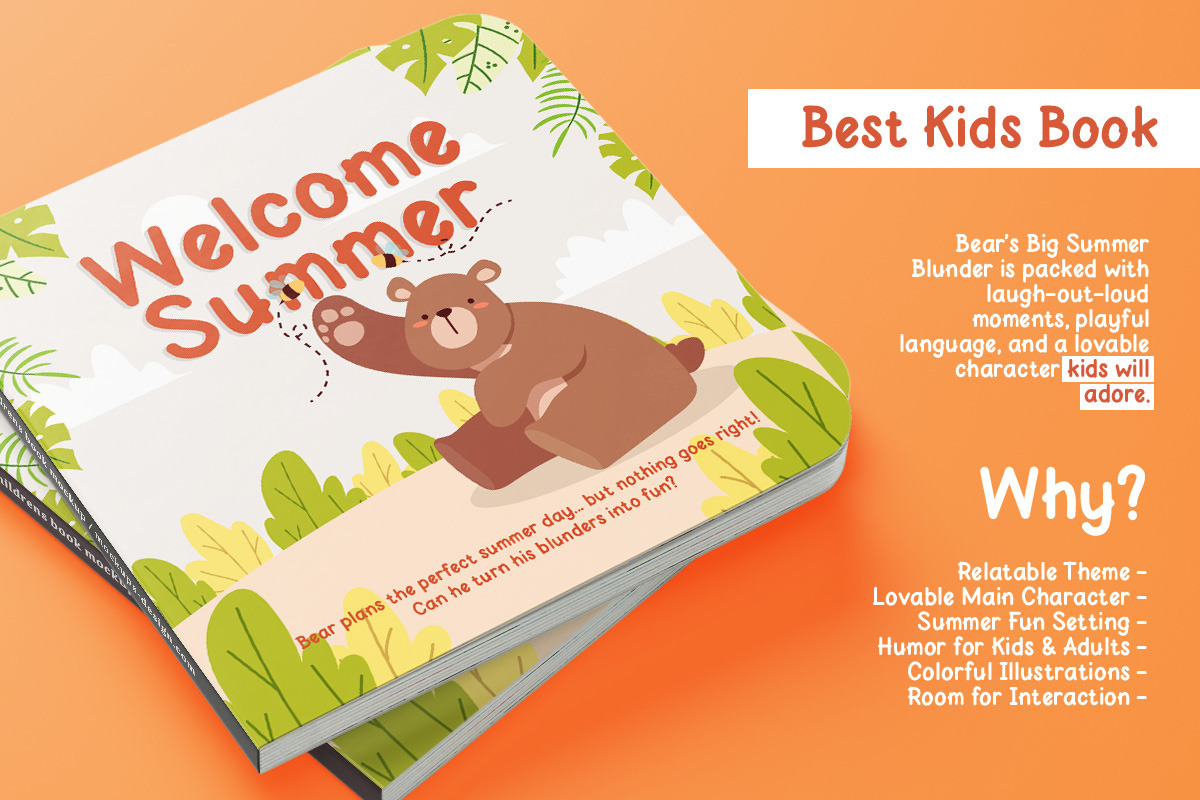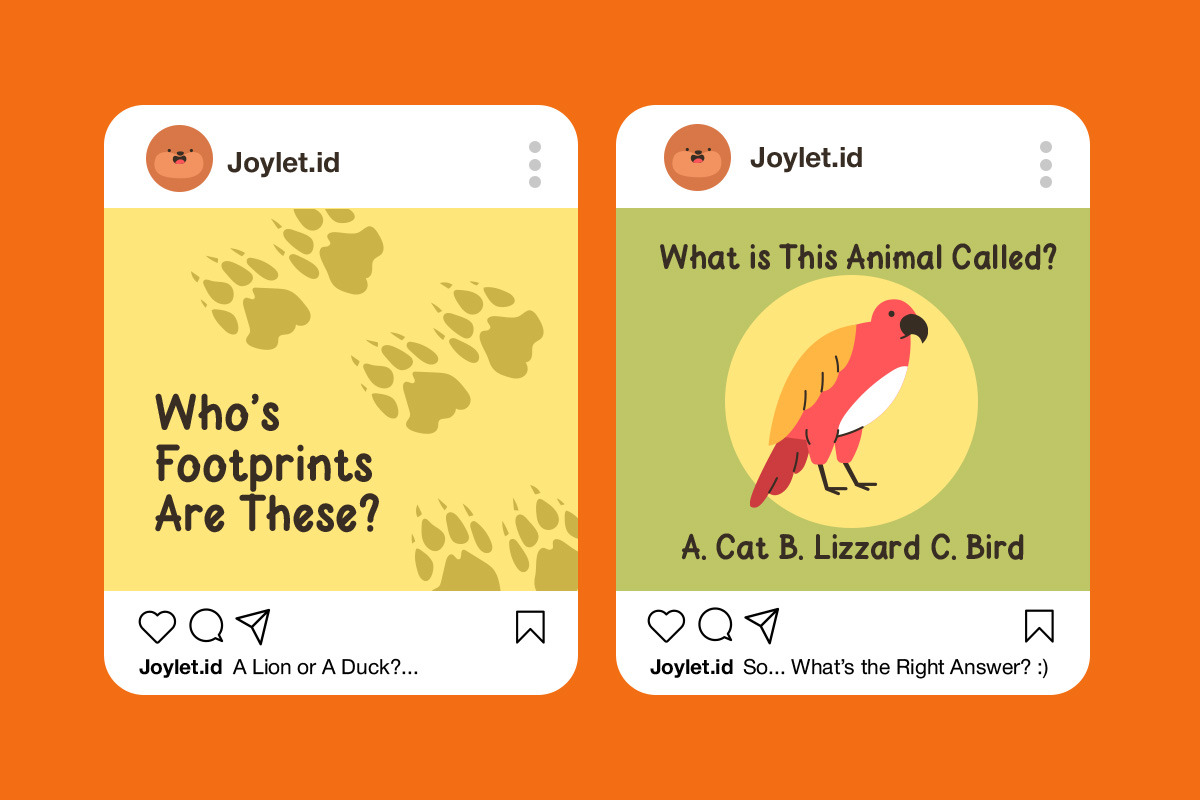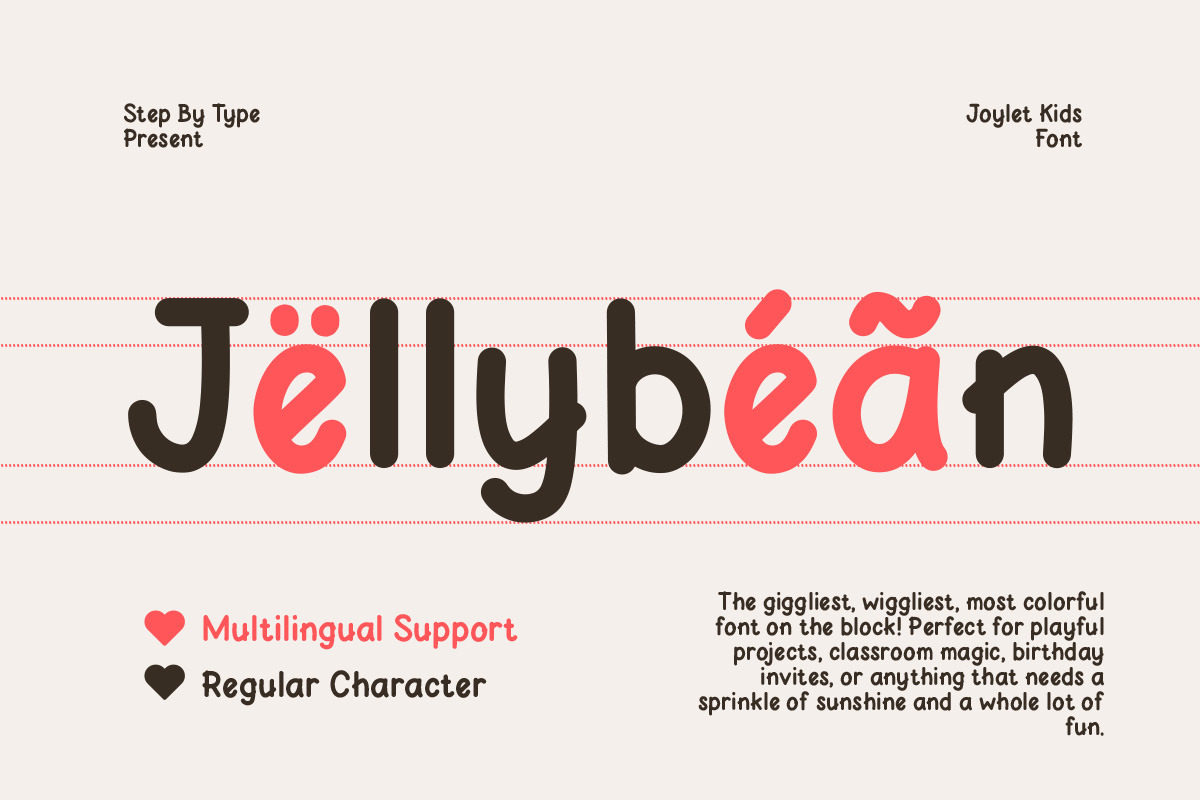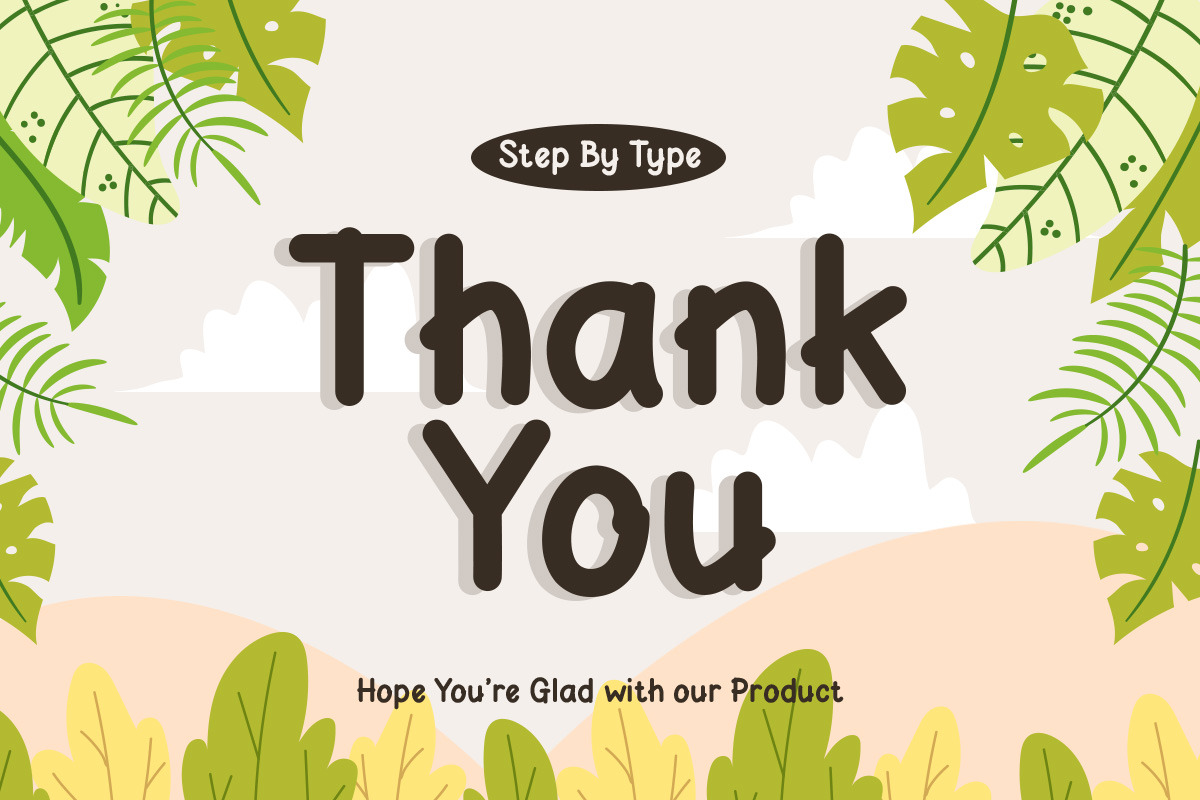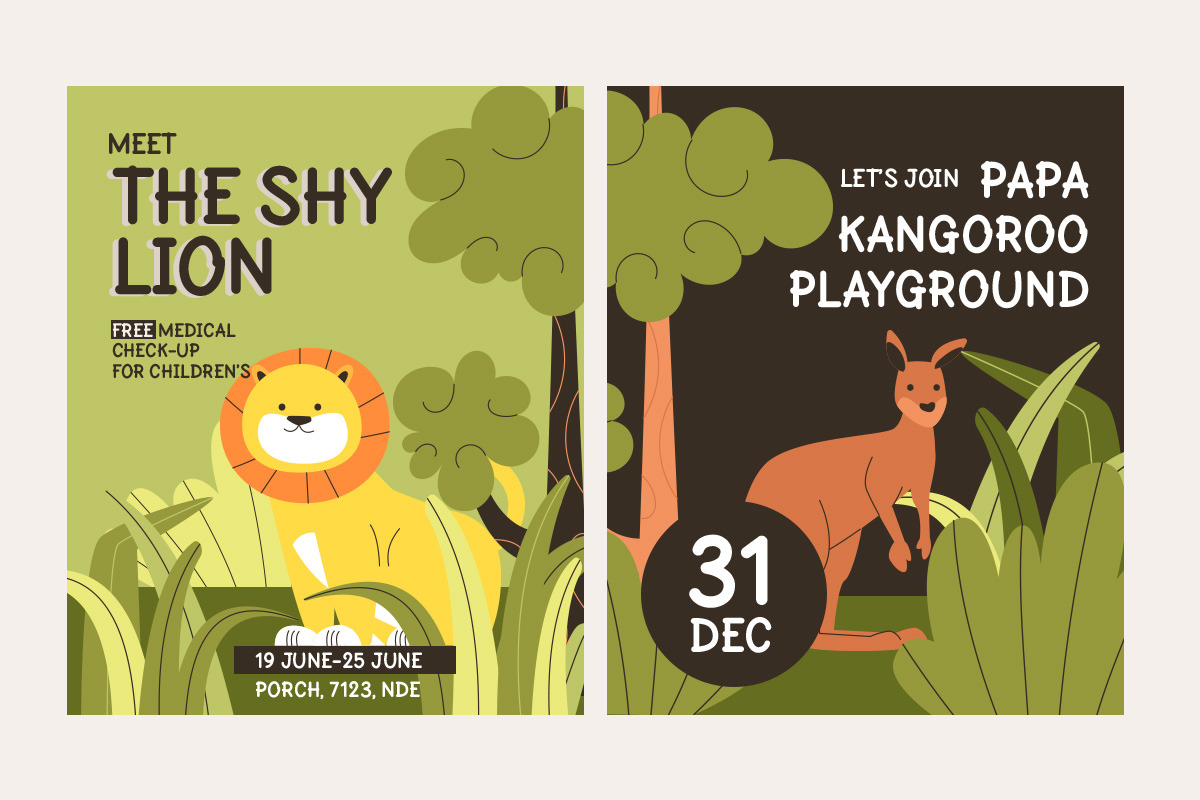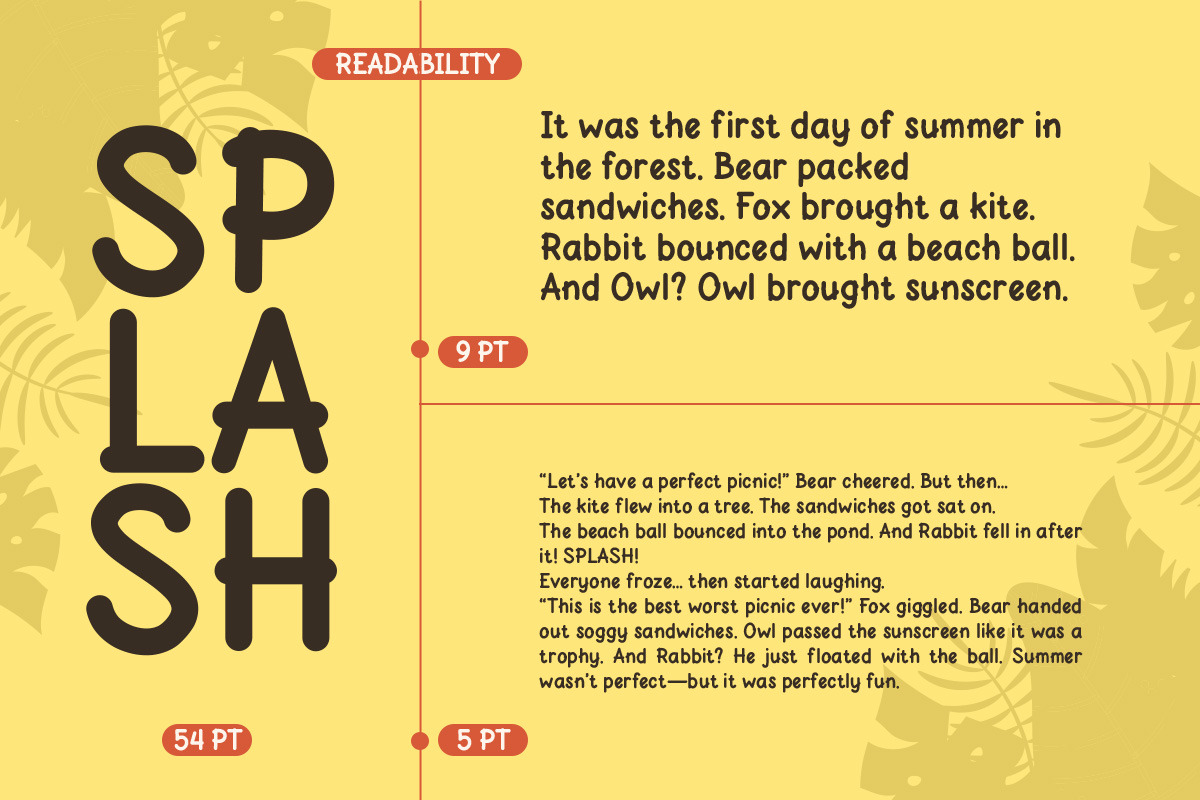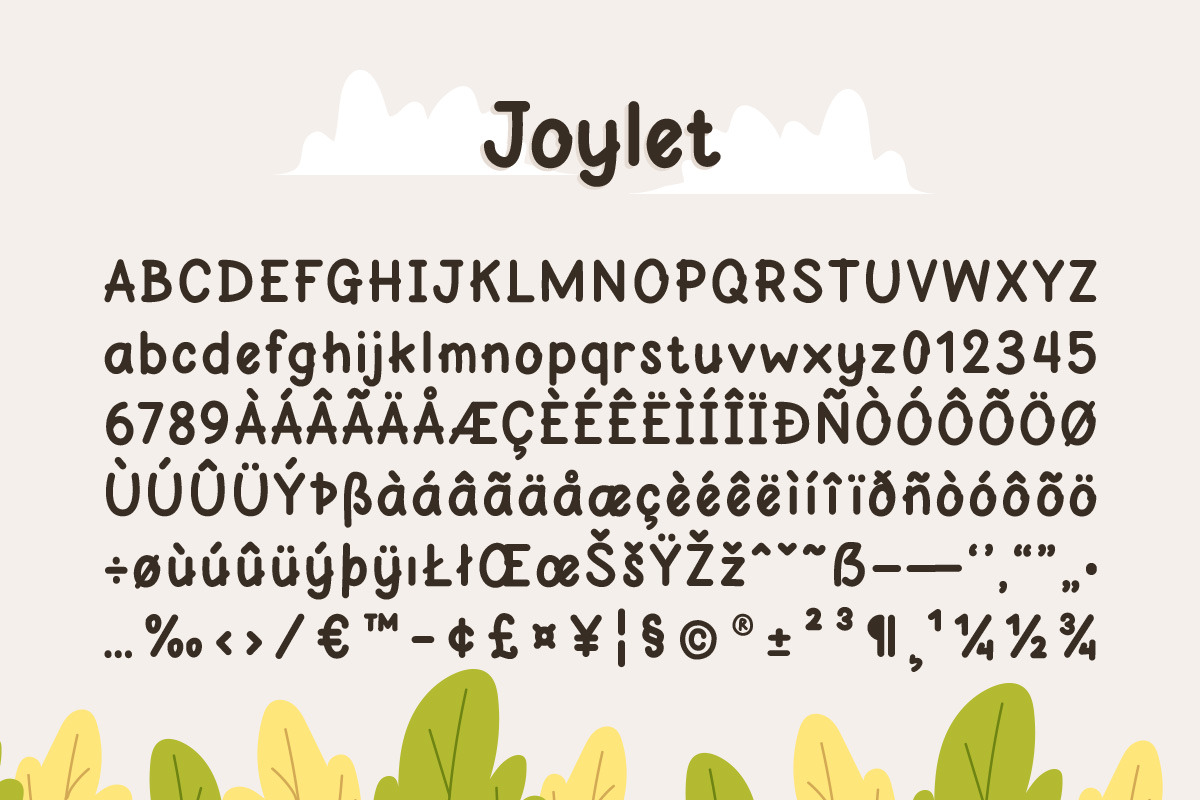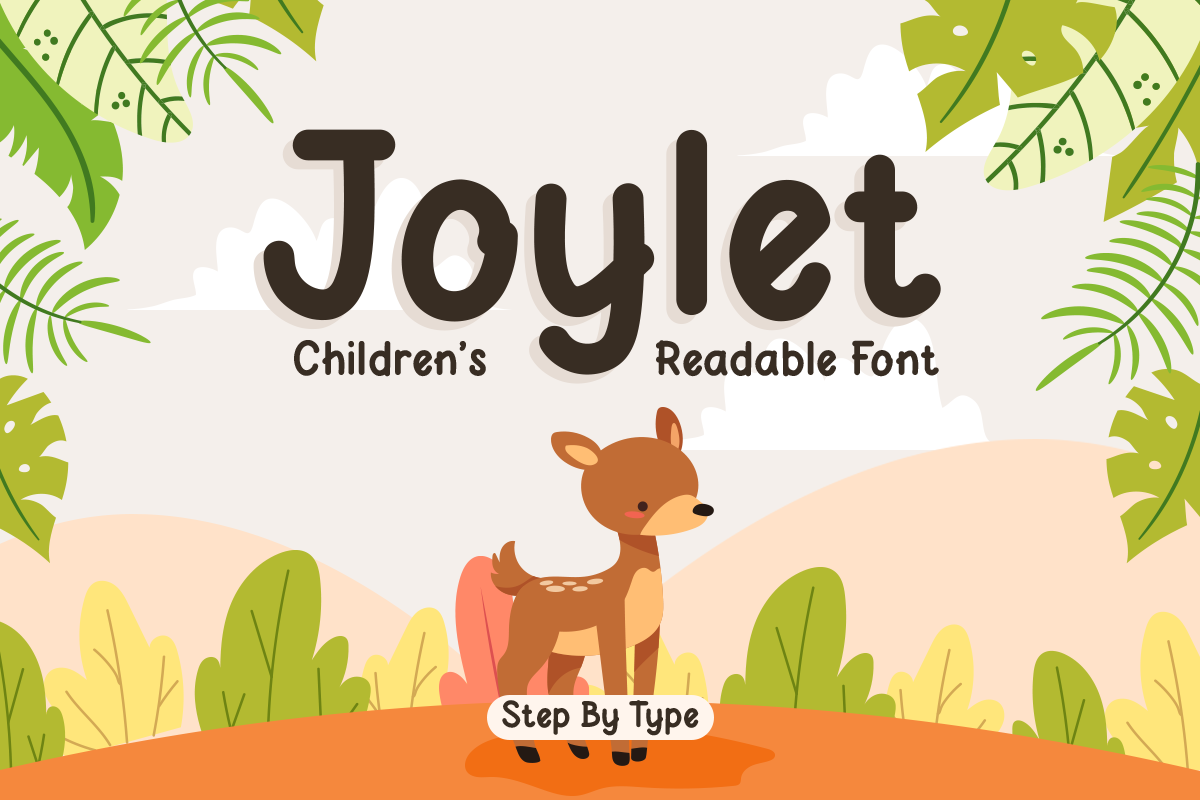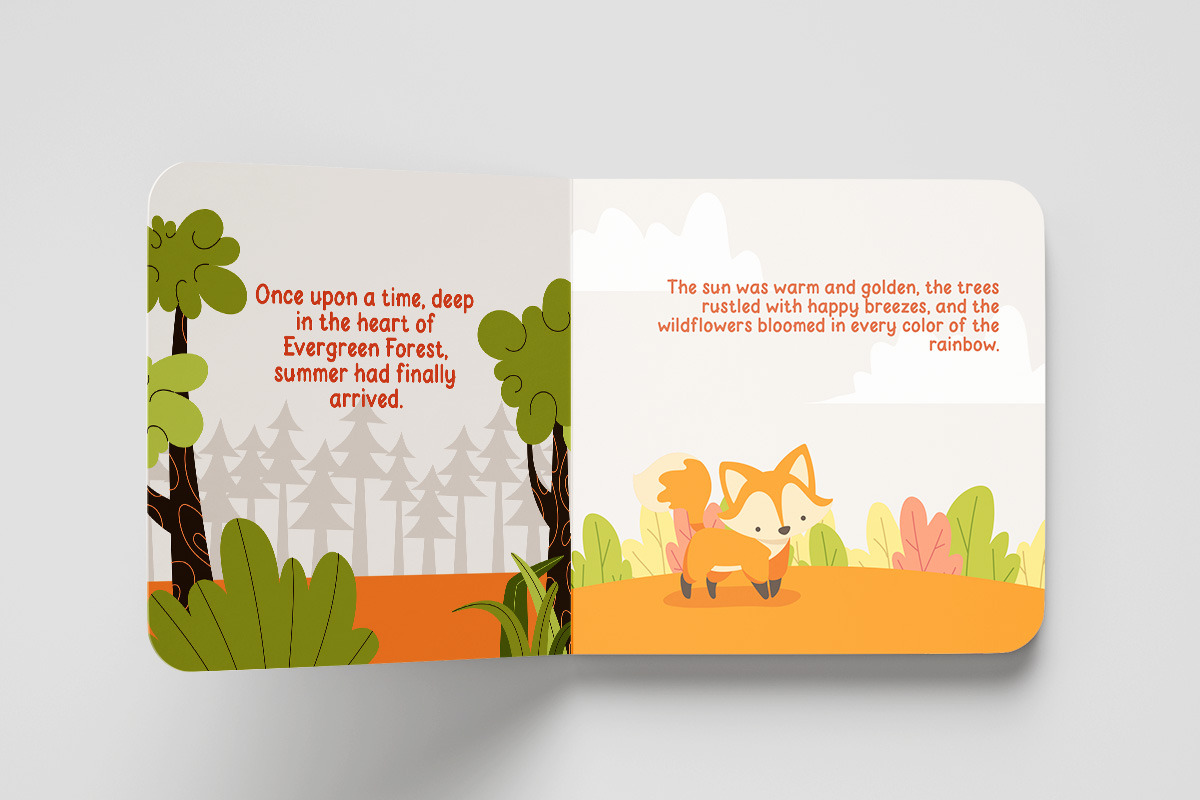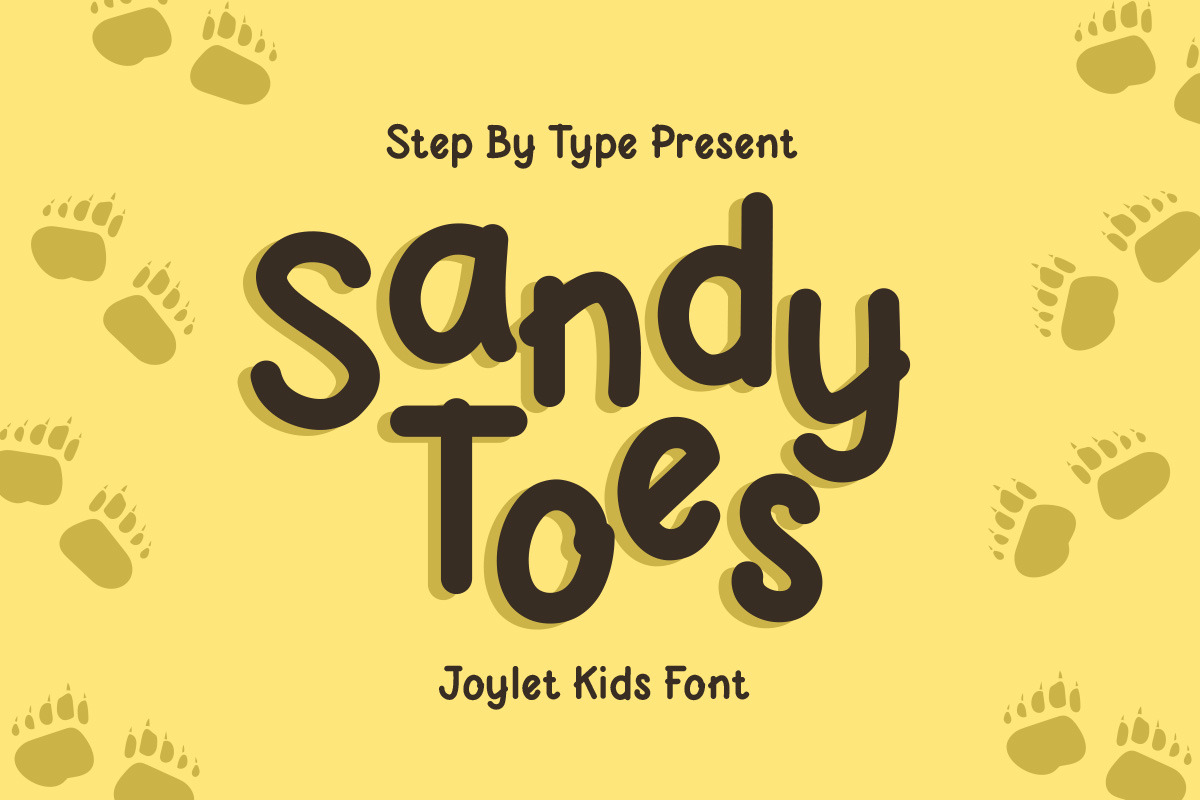
Joylet – A Playful Kids Font
Joylet is a kids handwriting font that radiates pure joy, playful, warmth, and youthful energy. With soft curves and a friendly flow, it’s designed to feel like it came straight from a child’s sketchbook—yet polished enough for professional use. Perfect for adding a charming, handmade touch to everything from classroom resources to brand visuals.
Style & Vibe:
- Playful, soft, and welcoming
- Balanced between legibility and character
- Joyful energy ideal for child-focused content
Target Market:
- Perfect for kids’ books, worksheets, birthday kits, and labels
- Ideal for family bloggers, teachers, Etsy sellers, and parenting influencers
- Great fit for Instagram graphics, YouTube intros, and children’s merchandise
Letterform Structure:
- Rounded, bold strokes with a hand-drawn touch
- Subtle quirks mimic natural kids handwriting
- Fully multilingual with extended character support
Best Use Cases:
- Classroom posters and flashcards
- Product packaging for kids and babies
- Social media posts, printables, greeting cards
- Branding for daycare, toy brands, and story apps
Need a font that speaks the language of childhood? Joylet is the kids handwriting font that instantly connects with both children and grown-ups. It brings heart, fun, and clarity to your designs—while staying friendly and professional.
💬 Natural & Approachable
- Feels like it was written with care—perfect for connecting emotionally with kids and parents.
-📚 Teacher-Approved Readability
- Easy to read for young learners while keeping a playful personality.
🎨 Versatile for All Projects
- Great for web, print, craft projects, and digital learning materials.
🌍 Multilingual & Symbol-Rich
- Supports a wide range of languages and special characters.
Give your designs the warmth and magic of childhood. Whether you're creating for classrooms, brands, or birthday invites, Joylet brings heartfelt charm to every word.